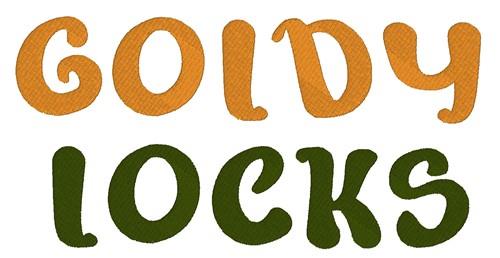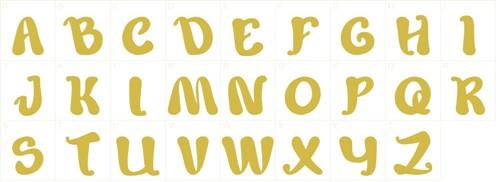
Goldy Locks Embroidery Font - Playful Decorative Handwriting - Home Format - PES, DST & 8 formats by Unicorn Creatives and other embroidery fonts available at EmbroideryDesigns.com.
Unicorn Creatives is happy to present Goldy Locks Embroidery Font - Playful Decorative Handwriting - Home Format - PES, DST & 8 formats machine embroidery font which has Decorative machine embroidery font showcasing playful letters in orange and green, ideal for embellishing cushions and bags. Available in PES, DST and 8 other formats. included. If you would like to view more embroidery fonts and alphabets please search our embroidery fonts page.